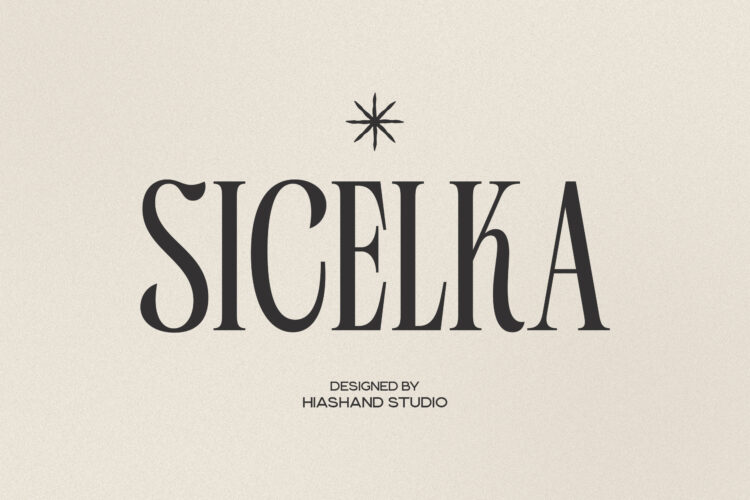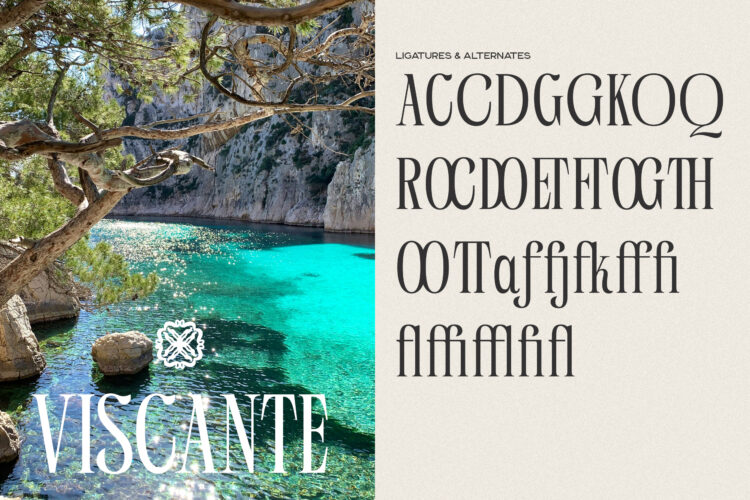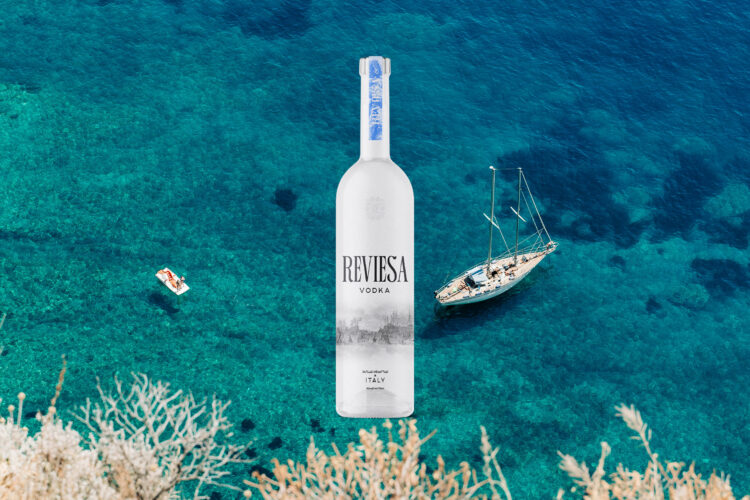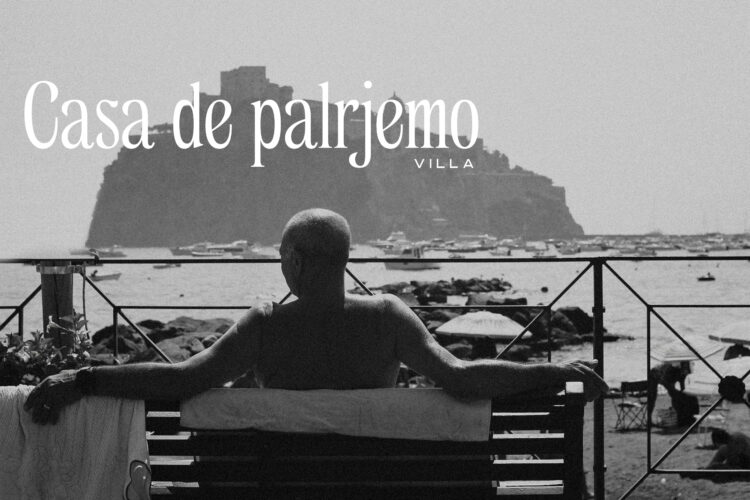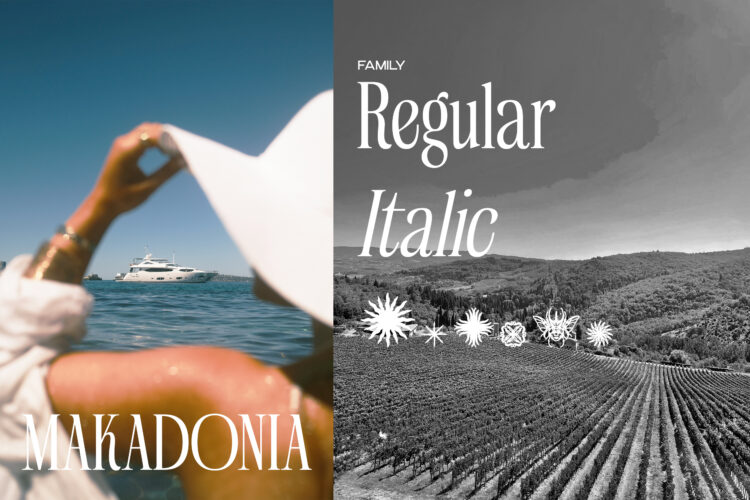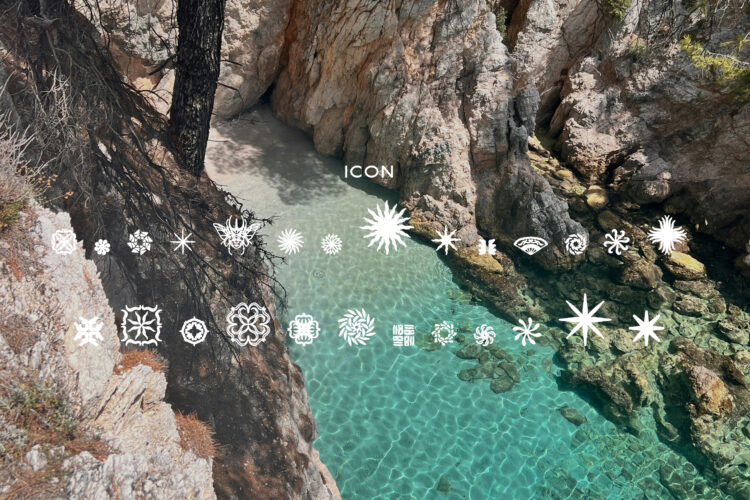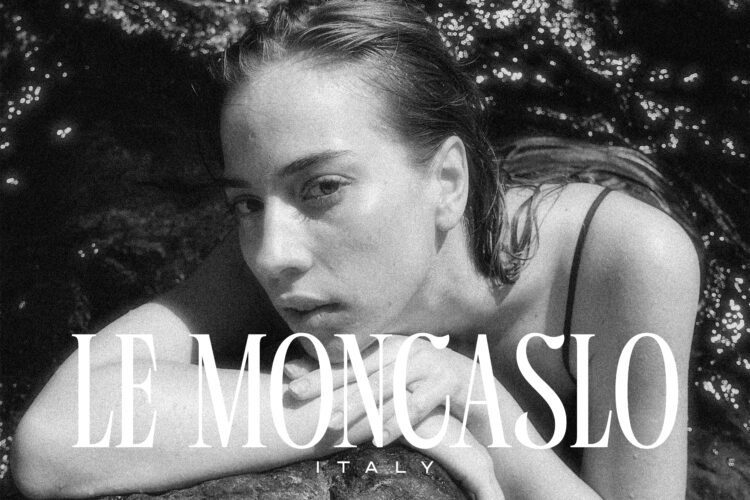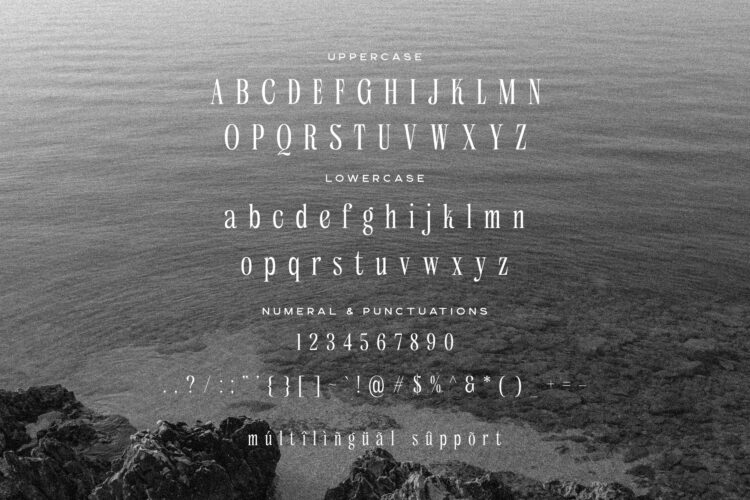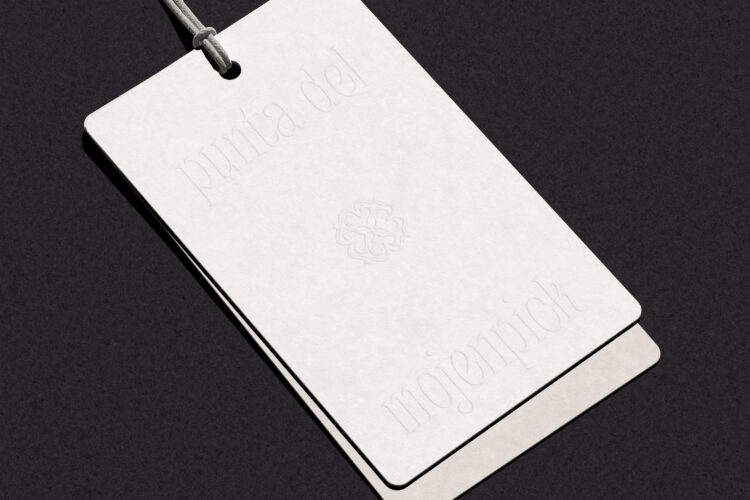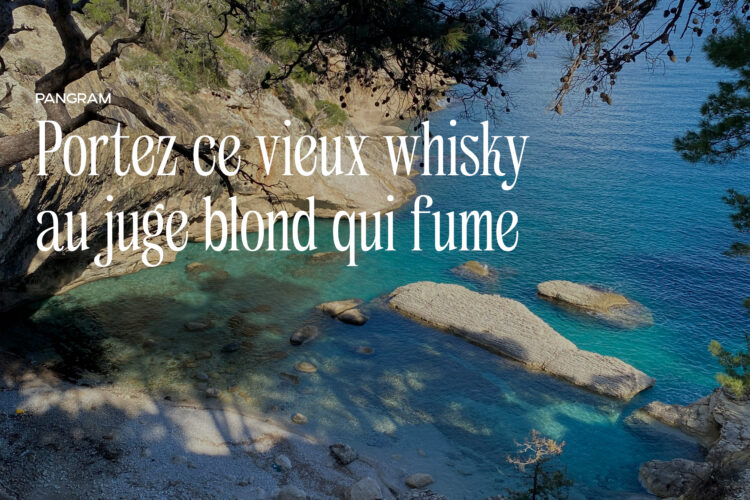
Sicelka is a sophisticated display serif typeface that epitomizes the intersection of towering architectural grace and modern luxury. Designed with a deliberate emphasis on verticality and refined proportions, it serves as a visual testament to high-end aesthetics and timeless prestige. Its elongated letterforms and slender structures create a striking silhouette that feels both contemporary and classic, making it an essential asset for designers who seek to elevate their visual storytelling.
The typeface is characterized by its dramatic contrast between thick and thin strokes, a hallmark of premium typography that instantly communicates exclusivity. The sharp, meticulously tapered serifs provide a crisp finish to every character, ensuring that the font remains legible while maintaining its artistic flair. Because of its tall X-height and narrow stance, Sicelka Serif Display Font possesses a unique ability to command attention in crowded layouts without overwhelming the surrounding design elements. It is a font that speaks in a whisper of “quiet luxury” rather than a shout, making it incredibly effective for minimalist yet high-impact compositions.
Sicelka is perfectly suited for a wide array of premium applications. In the realm of fashion, it excels as a centerpiece for haute couture branding, lookbooks, and runway invitations. For editorial designers, it offers the perfect balance of style and readability for luxury lifestyle magazines, fragrance advertisements, and high-concept jewelry catalogs. Furthermore, its elegant aesthetic makes it an ideal choice for upscale hospitality branding, artisanal cosmetics packaging, and sophisticated wedding stationery.
Beyond its physical attributes, Sicelka Serif Display Font is crafted to deliver a sense of confidence and poise. Every curve is balanced to create a harmonious flow, ensuring that whether it is used for a single-word logotype or a multi-line headline, the result is always polished and professional. For studios and independent creators focusing on premium market niches, Sicelka offers the versatility and elegance needed to transform a simple design into a masterpiece of luxury.
Complete with
- ligatures
- alternates
- regular
- italic
- icon
- kerning
- multilingual support